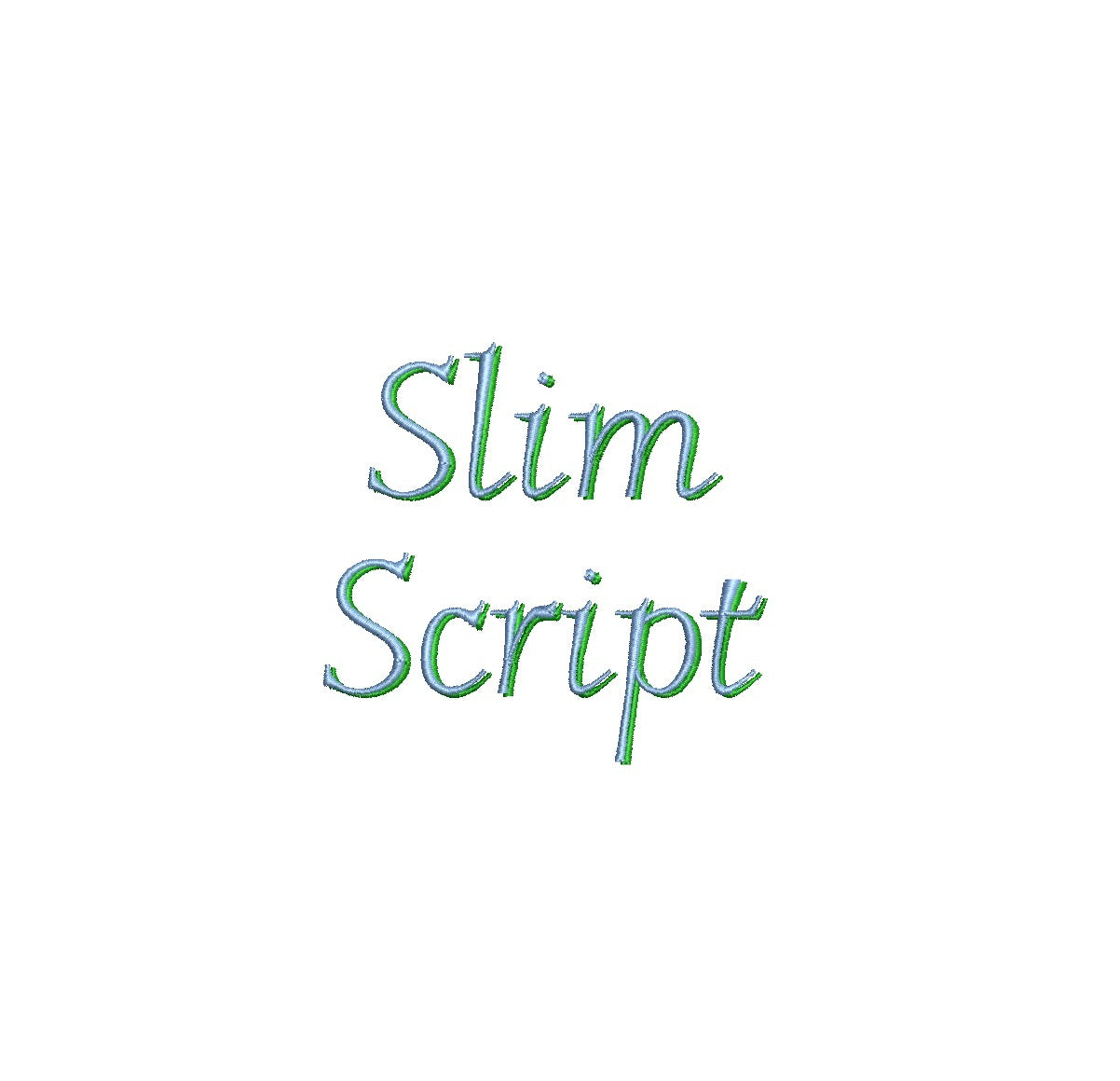
Slim Script Shadow ESA font
Elevate your embroidery with the sophisticated Slim Script Shadow ESA font. Designed for Wilcom Studio e4.5.6 and Hatch 3 versions and newer, this font effortlessly merges style and compatibility. Craft elegant designs with its sleek shadow effect, adding depth and flair to your lettering. Perfect for diverse applications, from modern monograms to refined text layouts. Effortlessly express your creativity as Slim Script Shadow ESA font enriches your embroidery. Elevate your designs and make a lasting impression. Choose this font to infuse your creations with sleek elegance that stands out, redefining your embroidery artistry.